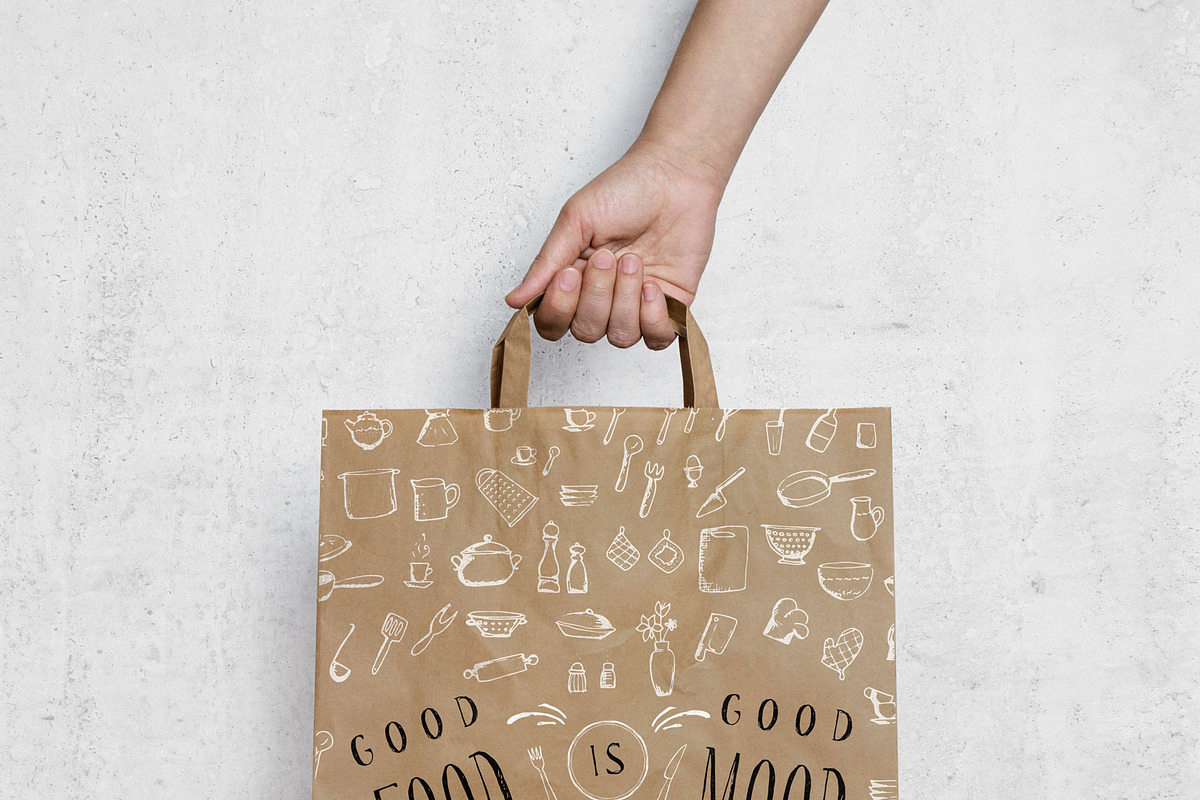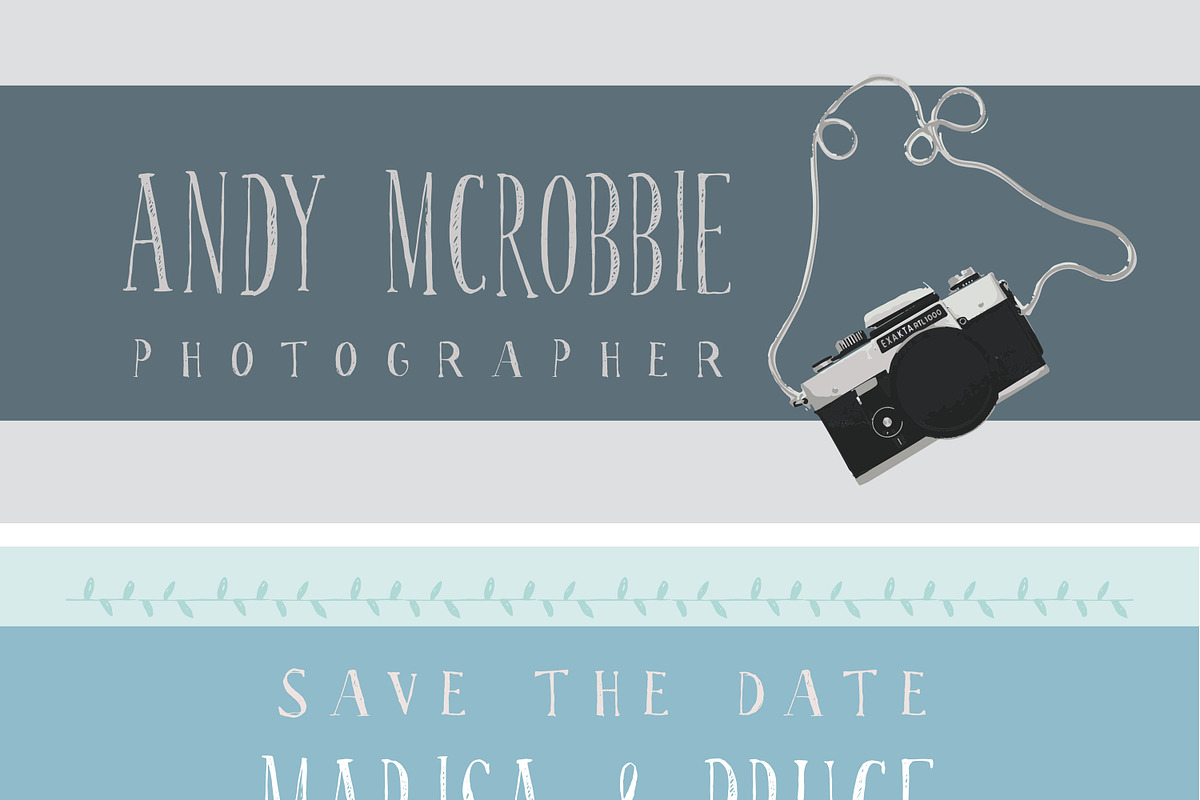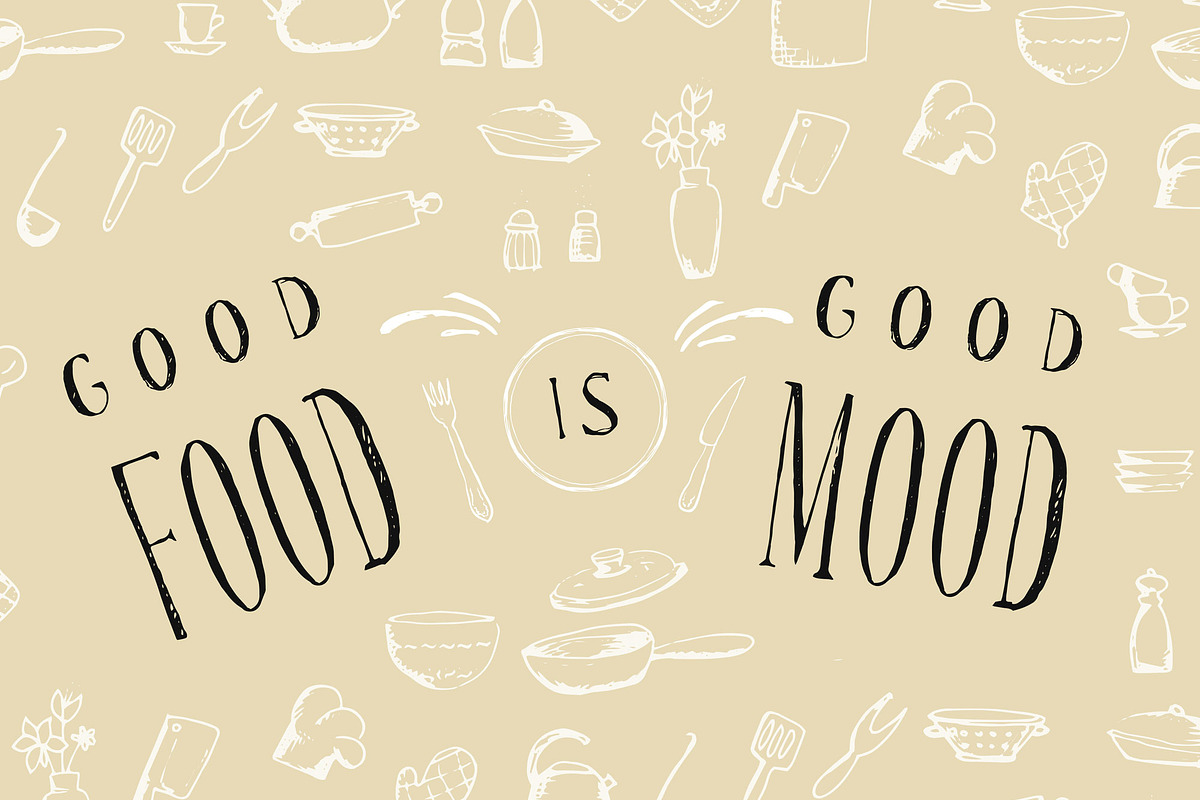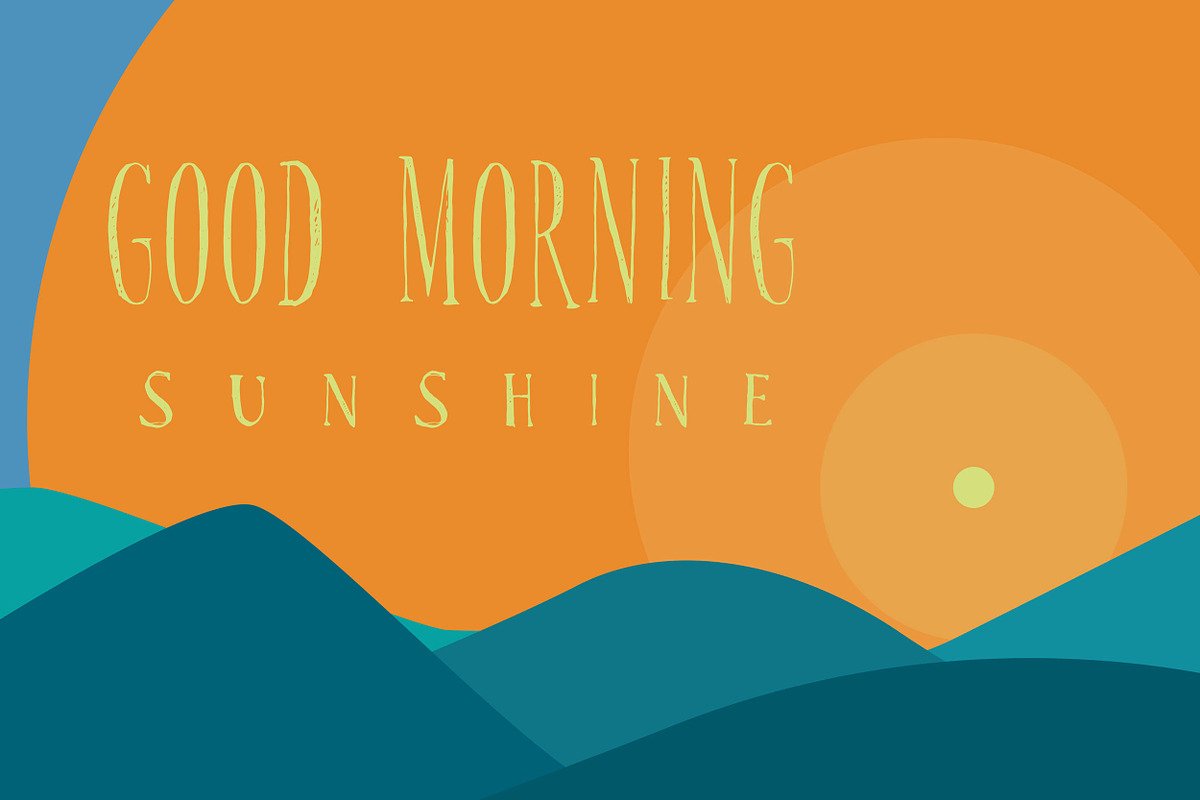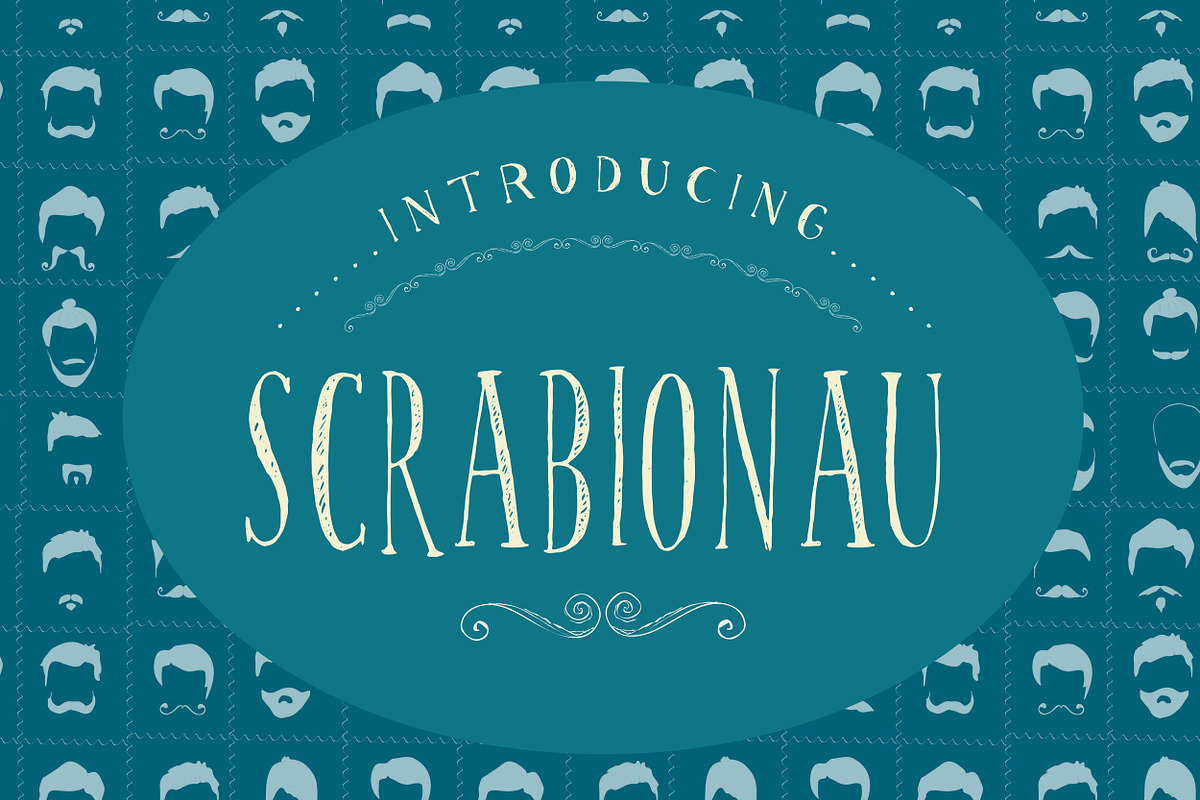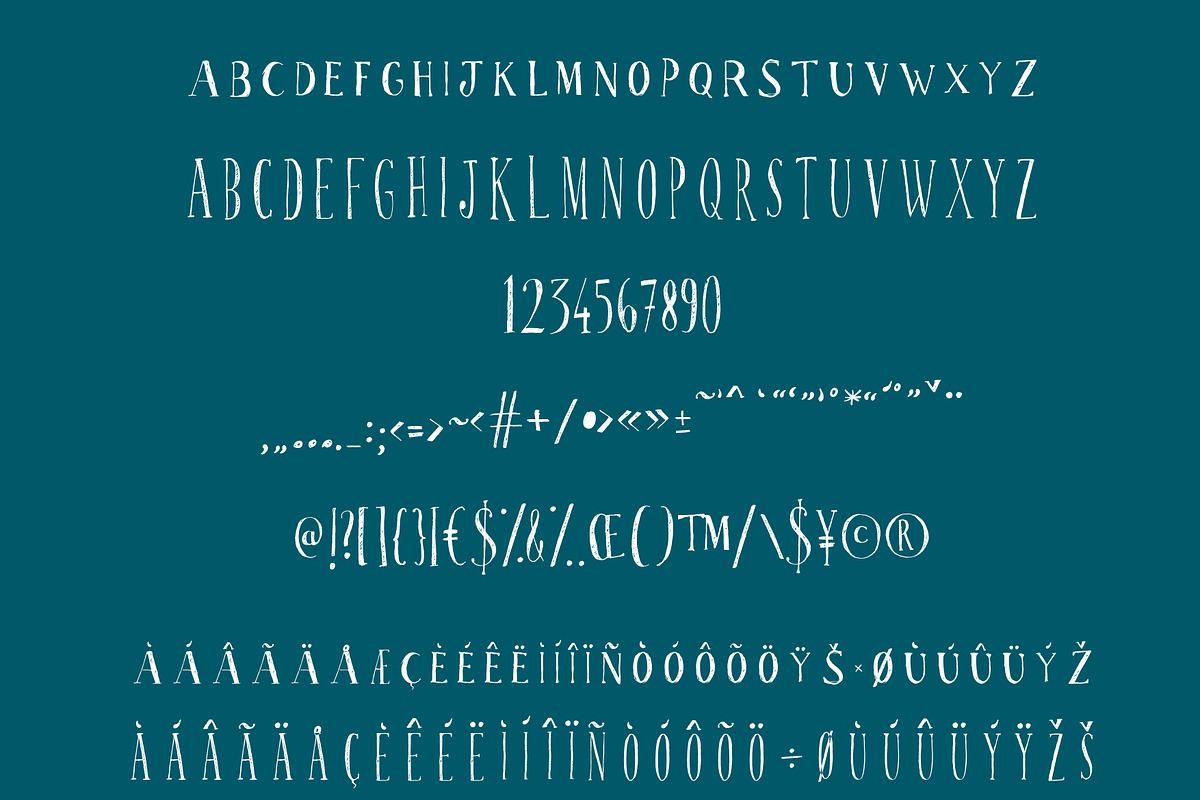
Scrabionau Font
Scrabionau Font by PATCHPO is a font selected for branding, posters, packaging, typography.
- Scrabionau contains standard characters, lowercase, uppercase, numbers, punctuation, and international characters.
Why Scrabionau Font is worth a look
Scrabionau Font by PATCHPO fits naturally into Branding, posters, packaging, typography.